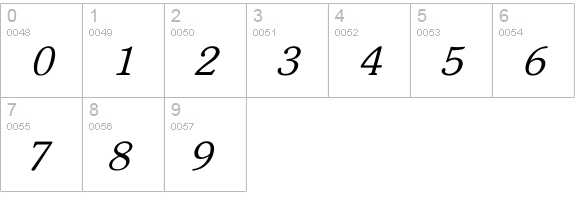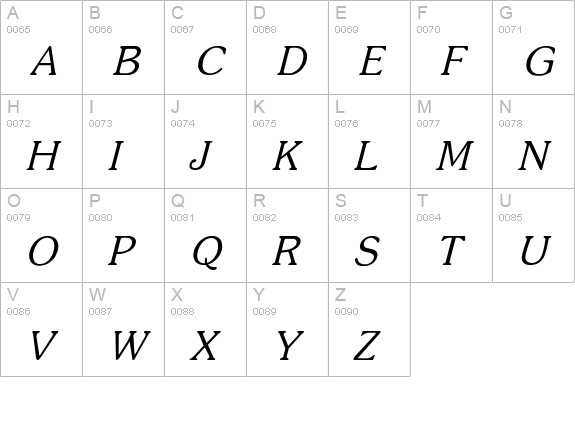
Zipf Light Italic Font Details
Zipf Light Italic is a refined, elegant, italic variant in the Zipf typeface family \xE2\x80\x94 well suited to elegant body text, refined sub-headings, and luxury branding.